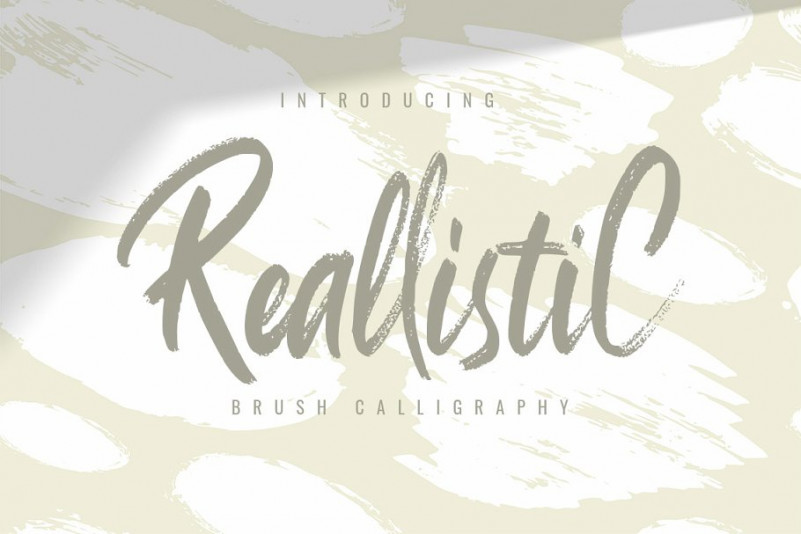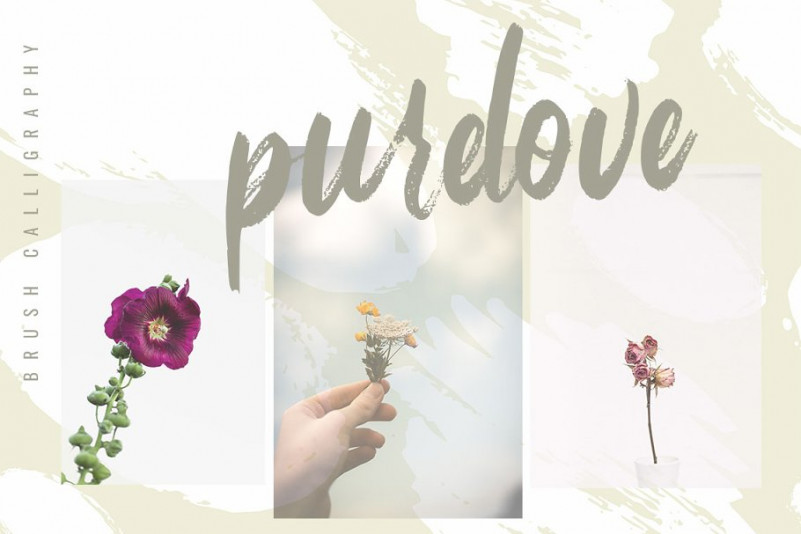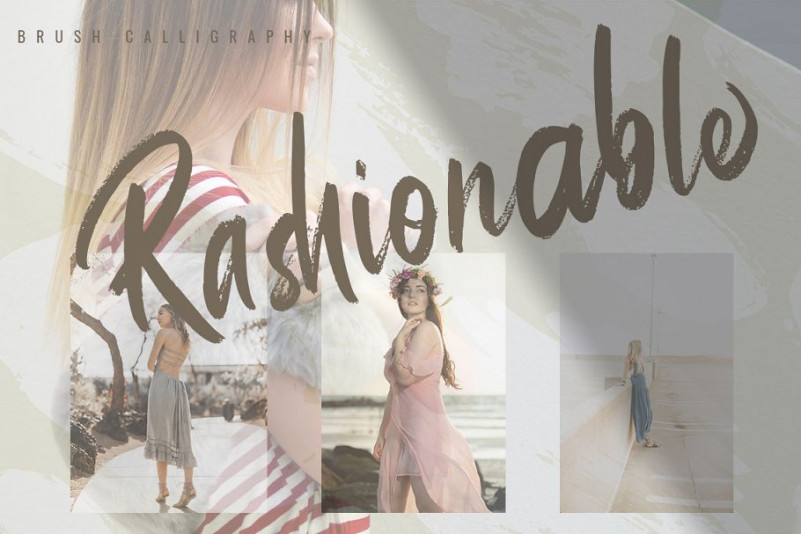
ReallistiC Font
ReallistiC Brush Script a new fresh & modern script with a calligraphy style, a dancing baseline! So beautiful on invitation like greeting cards, branding materials, business cards, quotes, posters, and more!